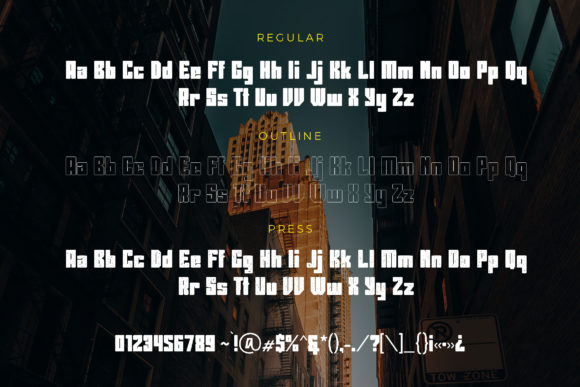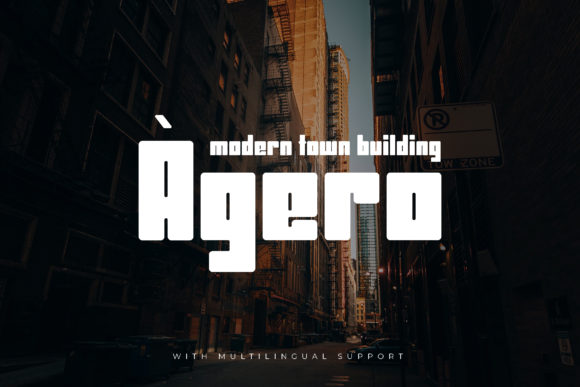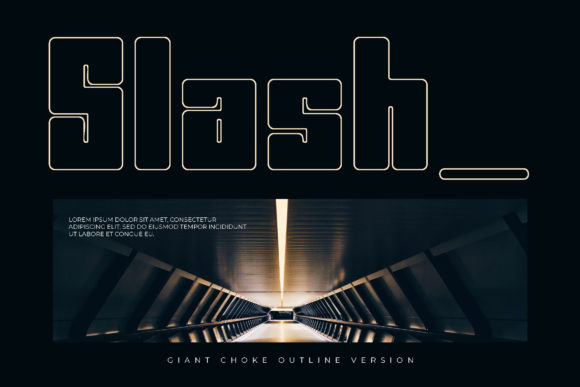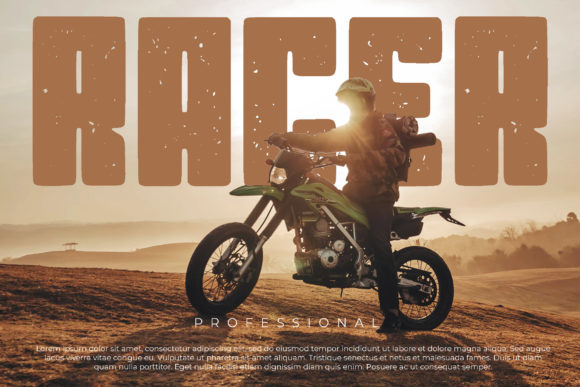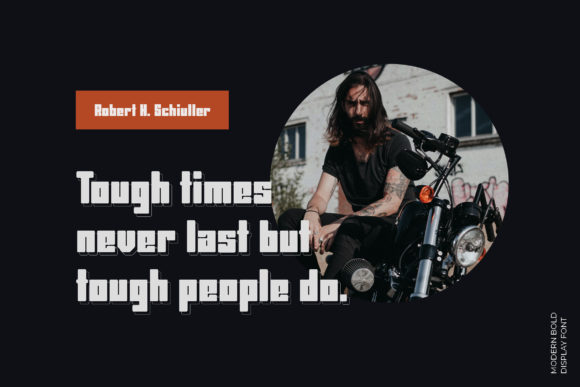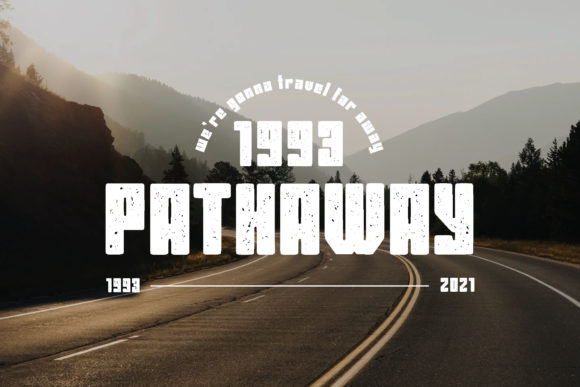
Introduction to Giant Choke Font
Remember the thrill of stumbling upon that perfect design element that elevates your creative project from ordinary to extraordinary? For designers, it’s a moment that sparks joy and fuels inspiration. For me, that moment came when I discovered the Giant Choke Font. Its bold, thick letters and unique touch instantly captured my attention, and I knew I had to share it with fellow creatives.
As a valuable design resource, the Giant Choke Font offers a high-quality solution for designers seeking to add a distinctive flair to their work. Whether you’re crafting web designs, business cards, or any other project that requires a unique touch, this font is sure to impress. And the best part? It’s available for free download, making it an accessible addition to your design arsenal. With its transparent background, you can seamlessly integrate it into any design, from logos to social media graphics.
Key Features of Giant Choke Font
- High-quality design resource for creative projects, available as a free download.
- Unique, hand-drawn design with a transparent background, ideal for adding a personal touch.
- Features a large size, making it perfect for creating eye-catching headlines and titles.
- Designed to be versatile, allowing for a wide range of creative applications, from logos to typography.
- Perfect for designers and artists looking for a distinctive, high-quality design resource.
Honest Review: Giant Choke Font
I recently stumbled upon the Giant Choke Font and was excited to give it a try. As a designer, I’m always on the lookout for high-quality fonts that can elevate my creative projects.
Here are some of the things that work well with the Giant Choke Font:
- ✨ Unique and creative design: The font has a bold, playful feel that’s perfect for projects that need a little extra oomph.
- ✨ Transparent background: This makes it easy to use the font on a variety of backgrounds without worrying about awkward color combinations.
While the Giant Choke Font is a great design resource, there are a few limitations to keep in mind:
- ⚠️ Limited character set: The font doesn’t include a full range of characters, which can be a problem if you need to use it for a project that requires a lot of special characters.
- ⚠️ Not suitable for small text: The font is best used for larger text sizes, as it can be difficult to read at smaller sizes.
Overall, I’m impressed with the Giant Choke Font and would recommend it for designers looking for a bold, creative font to add some personality to their projects. With a little creativity and planning, you can work around the limitations and get great results.
Giant Choke Font
The Giant Choke Font is a unique and versatile design resource that can elevate your creative project to the next level. With its high-quality and stylish design, this font is perfect for designers looking to add a touch of sophistication to their work.
Using Giant Choke Font in Adobe Photoshop/Illustrator
In Adobe Photoshop and Illustrator, you can use the Giant Choke Font to create high-quality designs and graphics. Simply import the font file and use it to create custom text and graphics. The font’s high-quality design makes it perfect for printing and digital use.
Using Giant Choke Font in PowerPoint/Word
You can also use the Giant Choke Font in PowerPoint and Word to create custom presentations and documents. Simply select the font and use it to create custom text and graphics. The font’s transparent background makes it easy to layer and combine with other design elements.
Tips for Getting the Most Out of Giant Choke Font
To get the most out of the Giant Choke Font, try using it in combination with other design elements, such as graphics and images. You can also experiment with different font sizes and colors to create a unique and eye-catching design.
The Giant Choke Font is perfect for a variety of use cases, including logos, graphics, and custom designs. You can also use it to create custom text and graphics for presentations, documents, and websites.